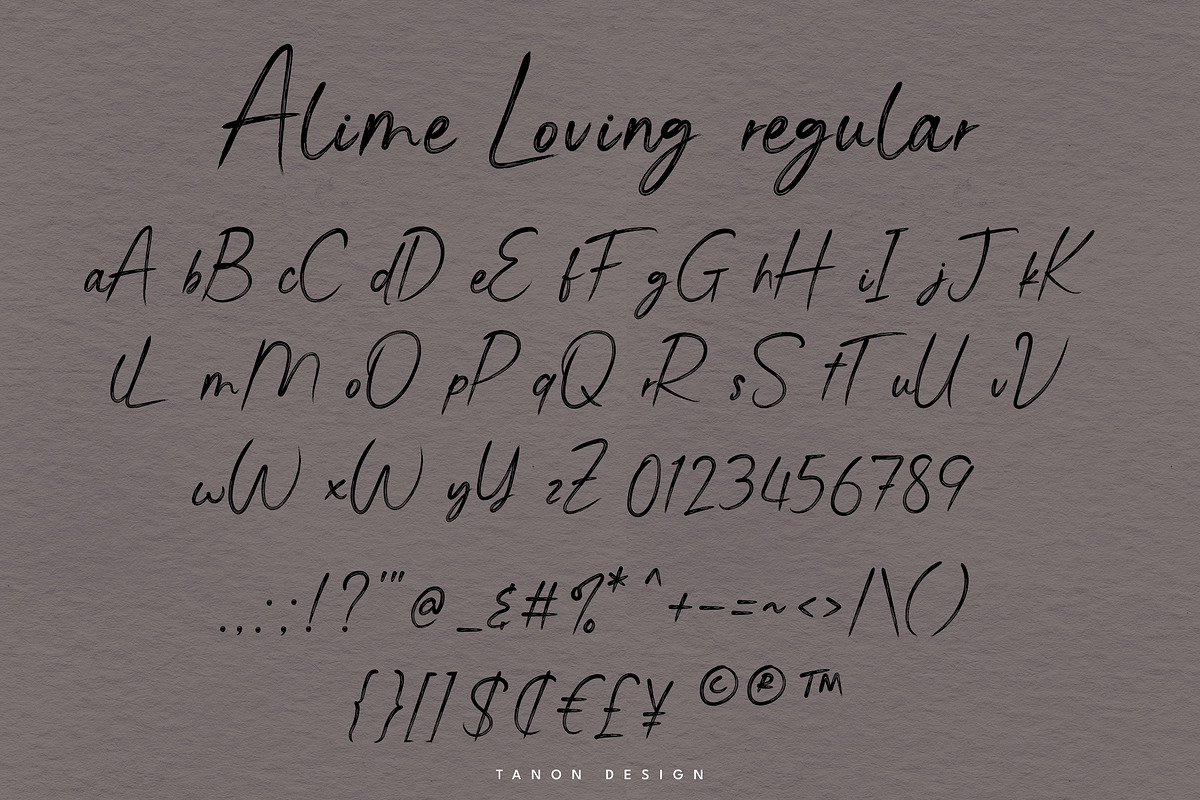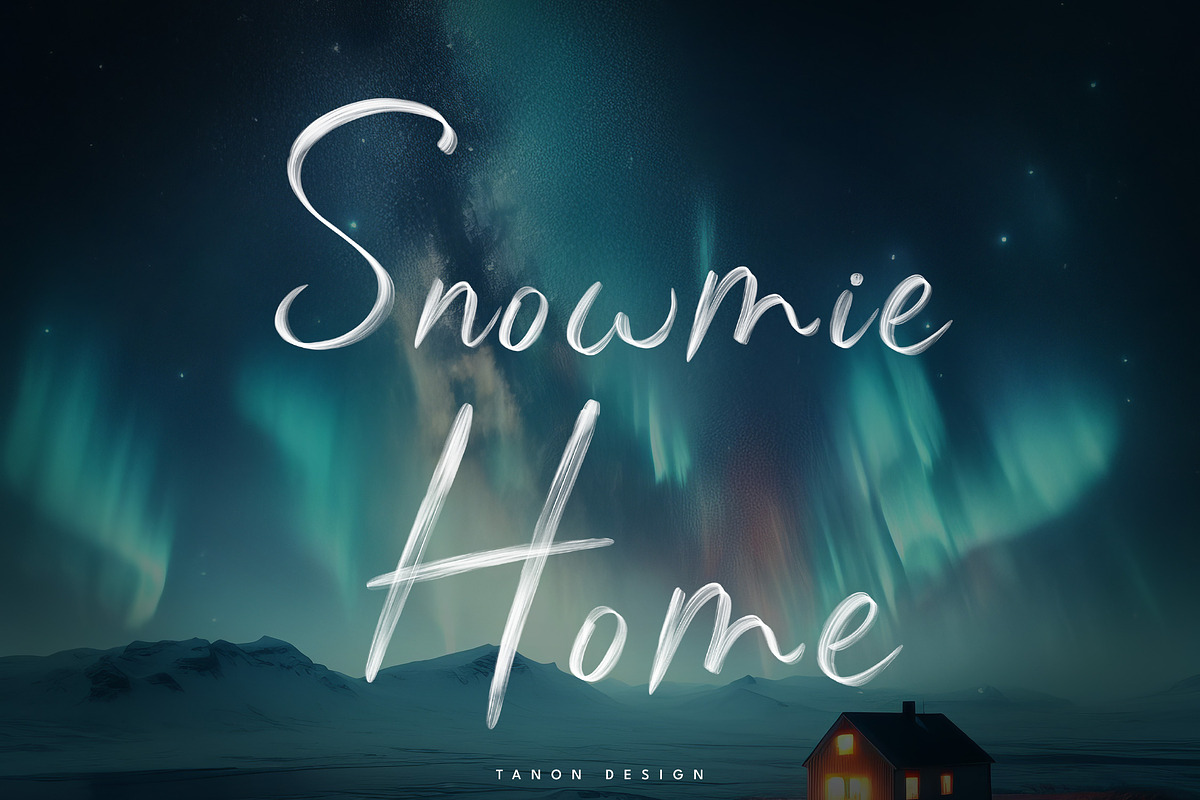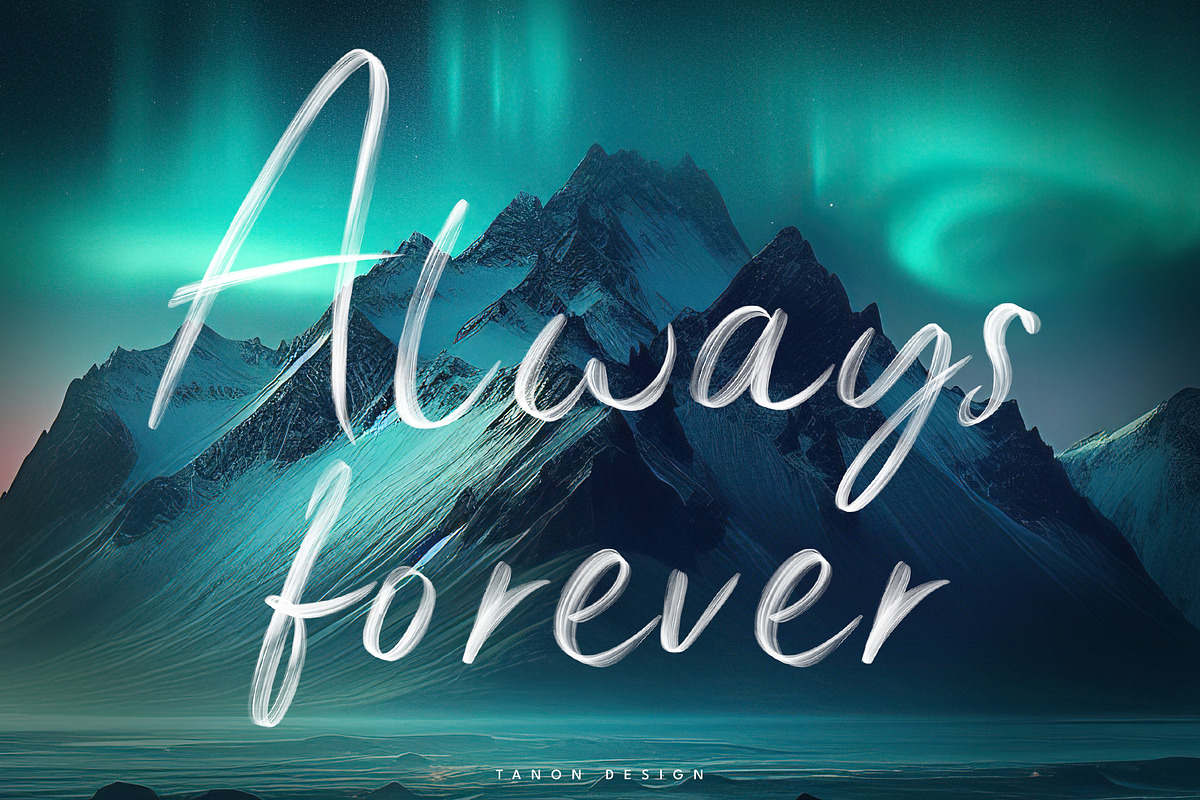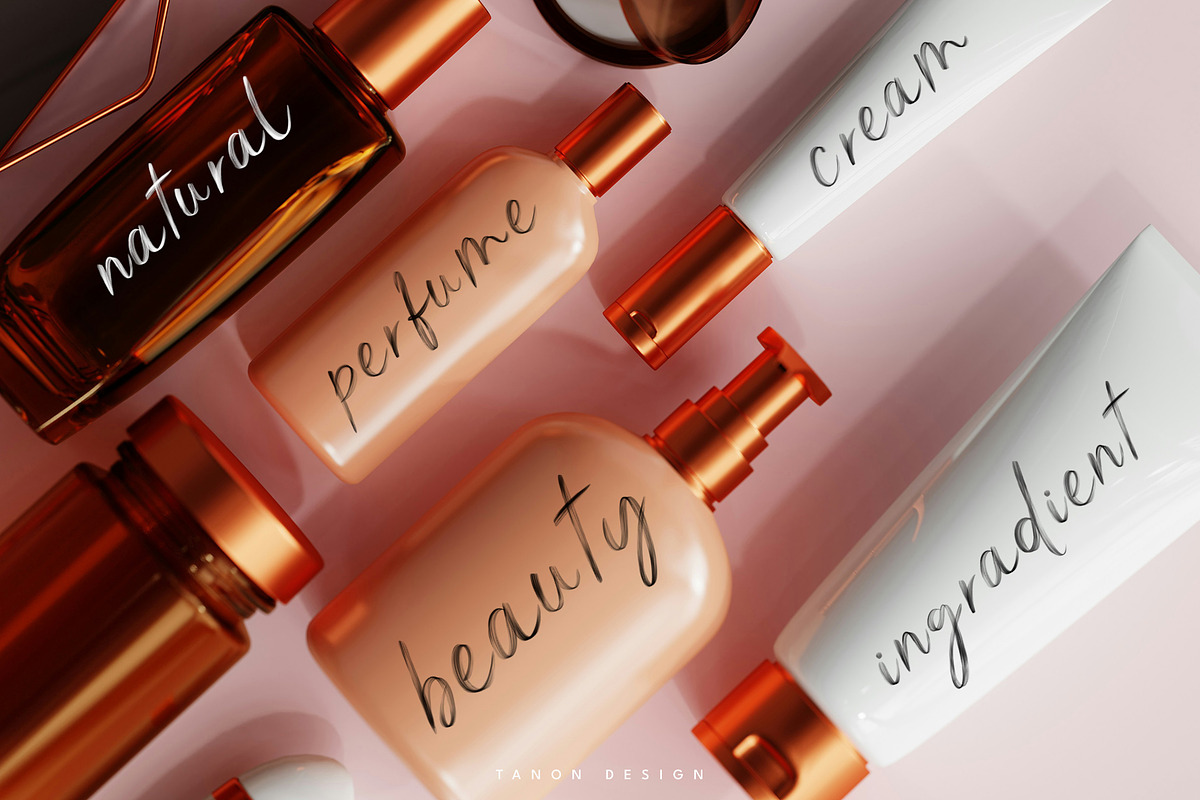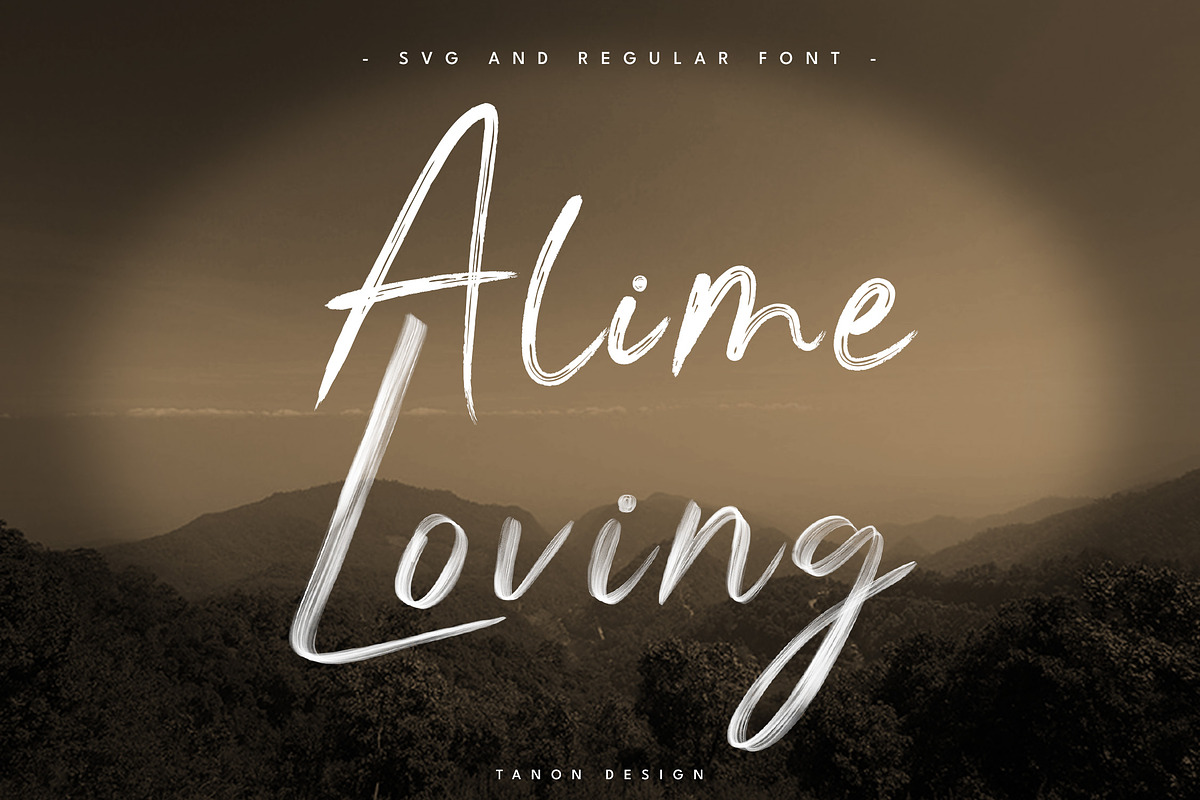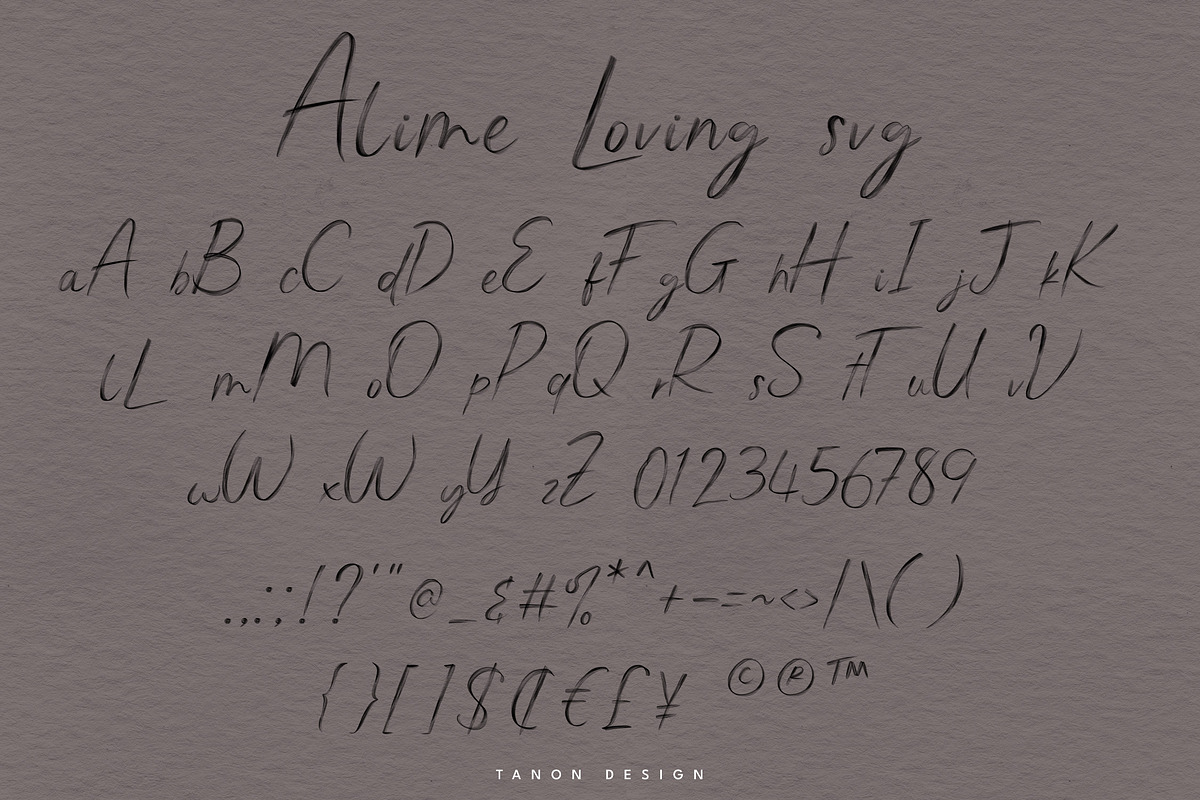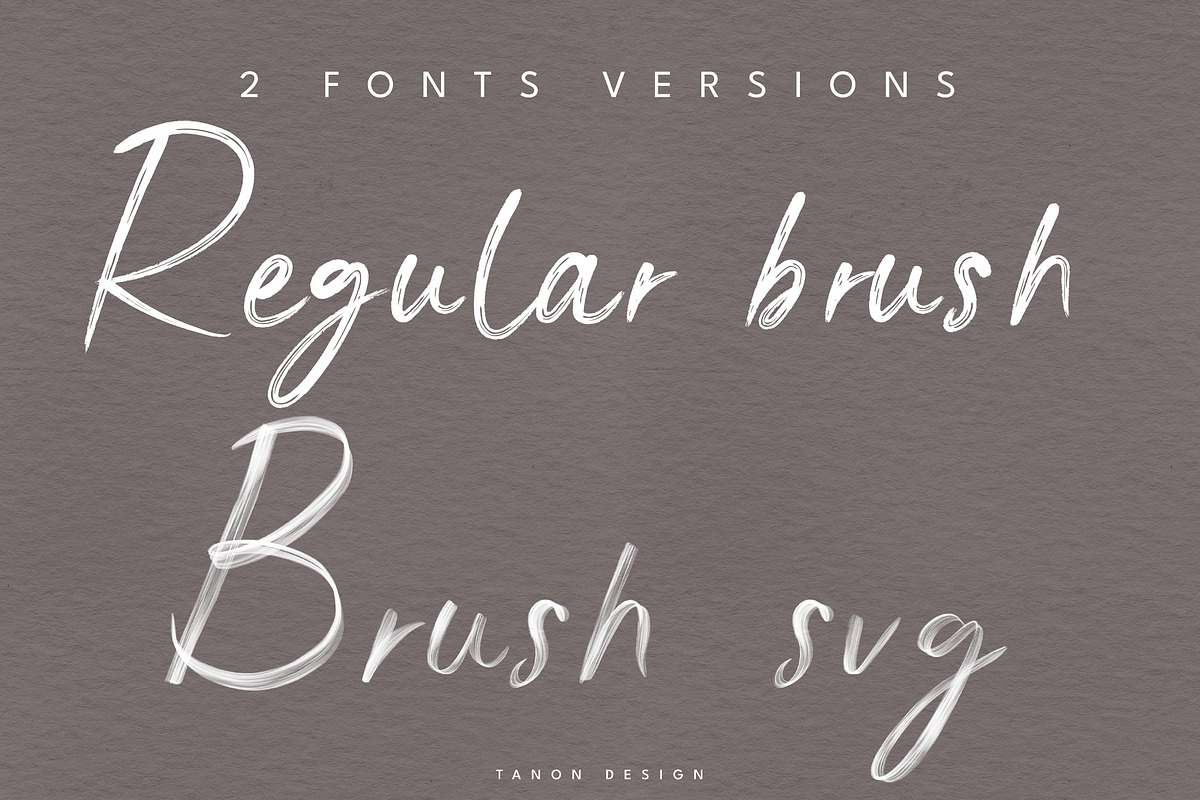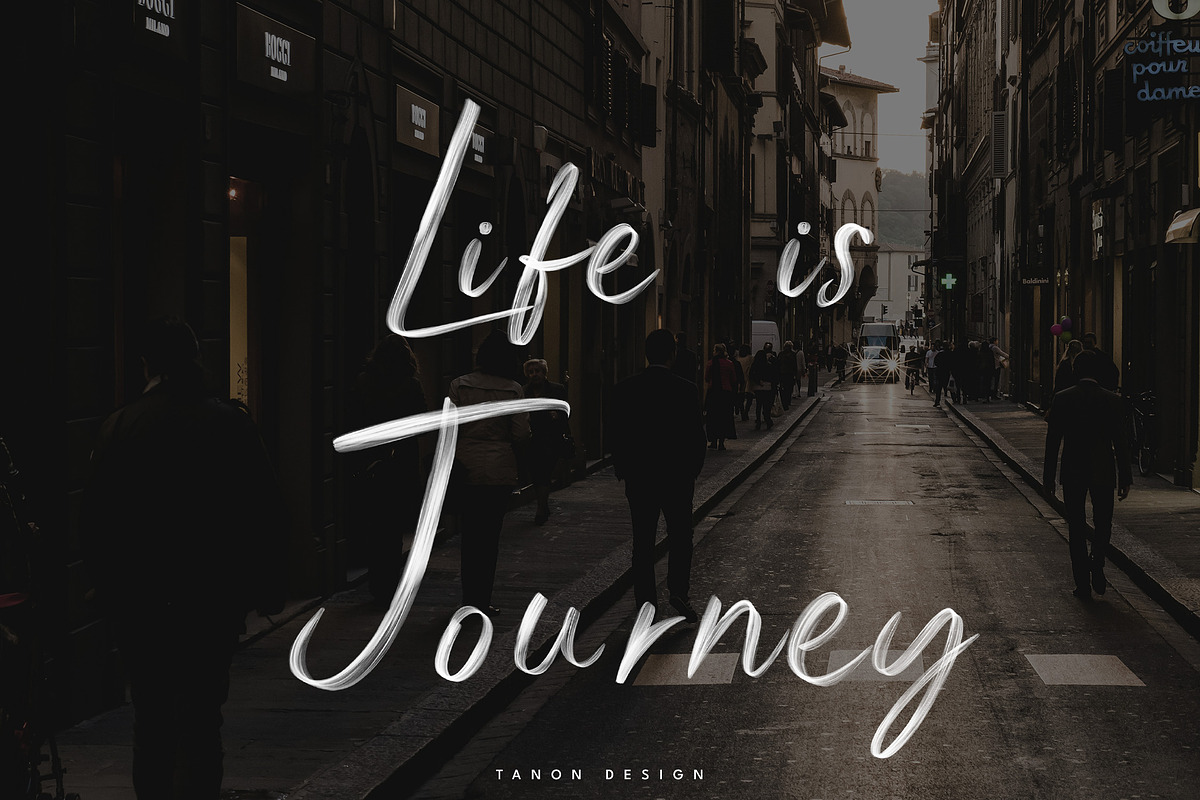
Alime Loving two font set Brush font
Introducing “Alime Loving” Regular and SVG font. realistic brush fonts, handwritten brush font. It will look fantastic on all your project designs including t-shirt designs, mug designs, digital designs, crafts, cards, and any projects!